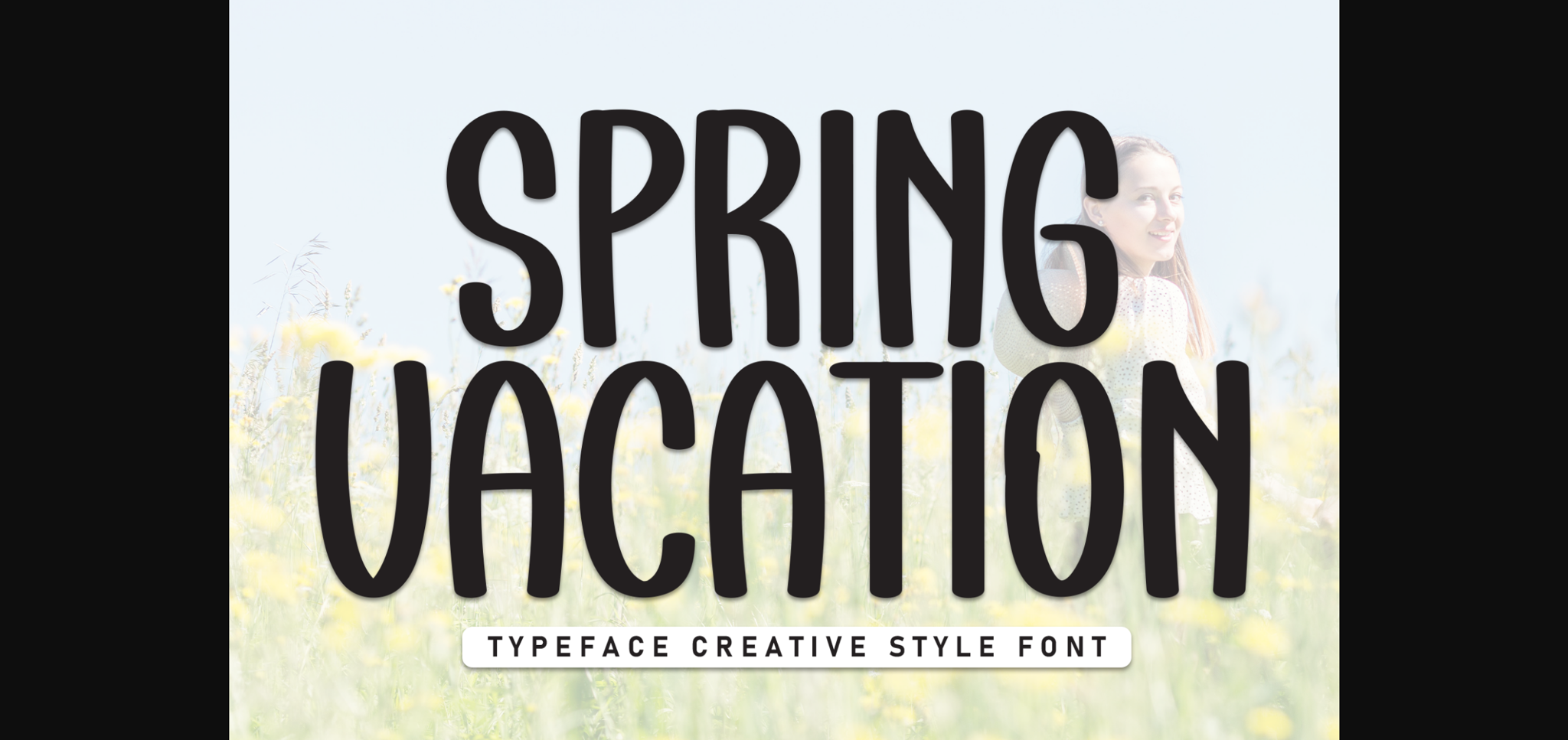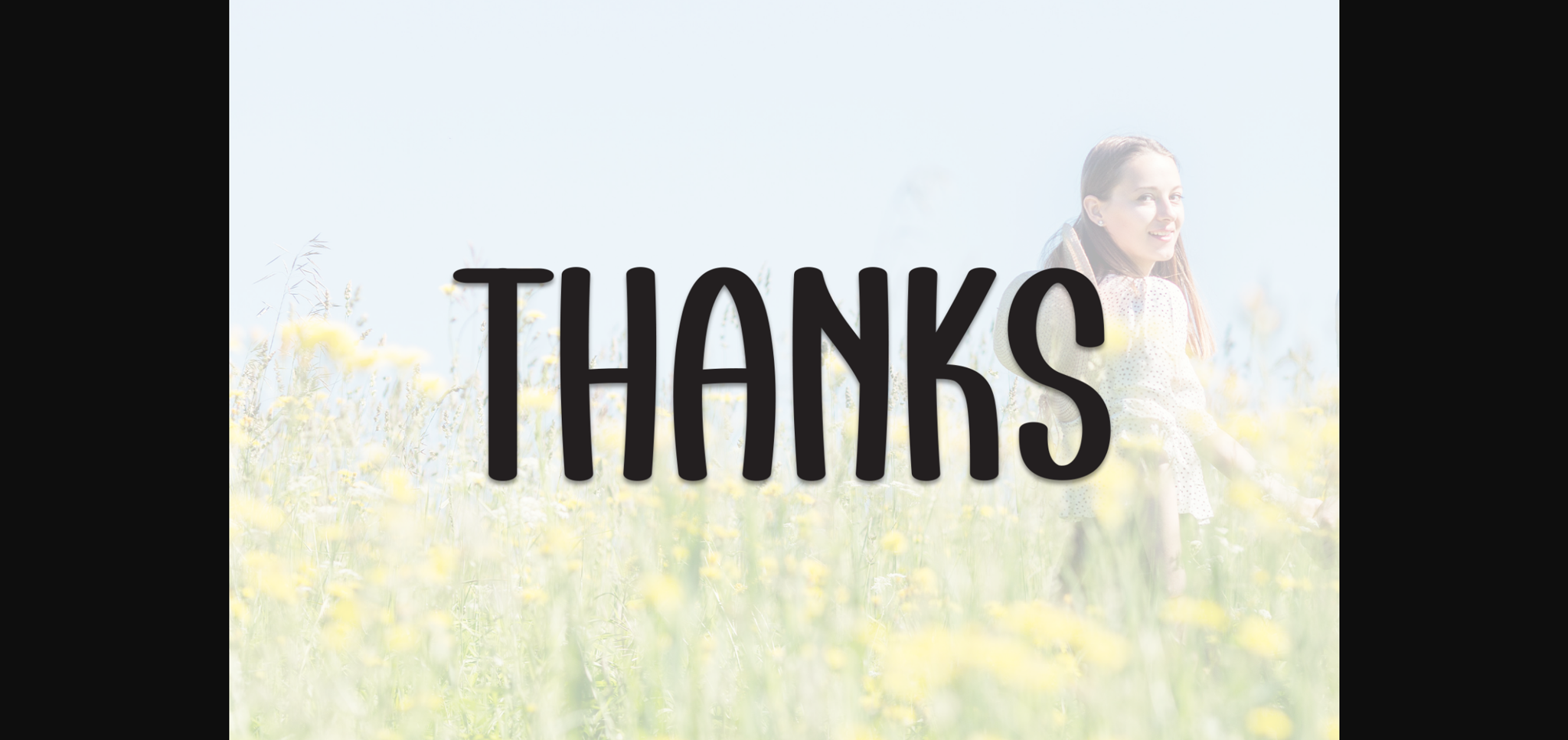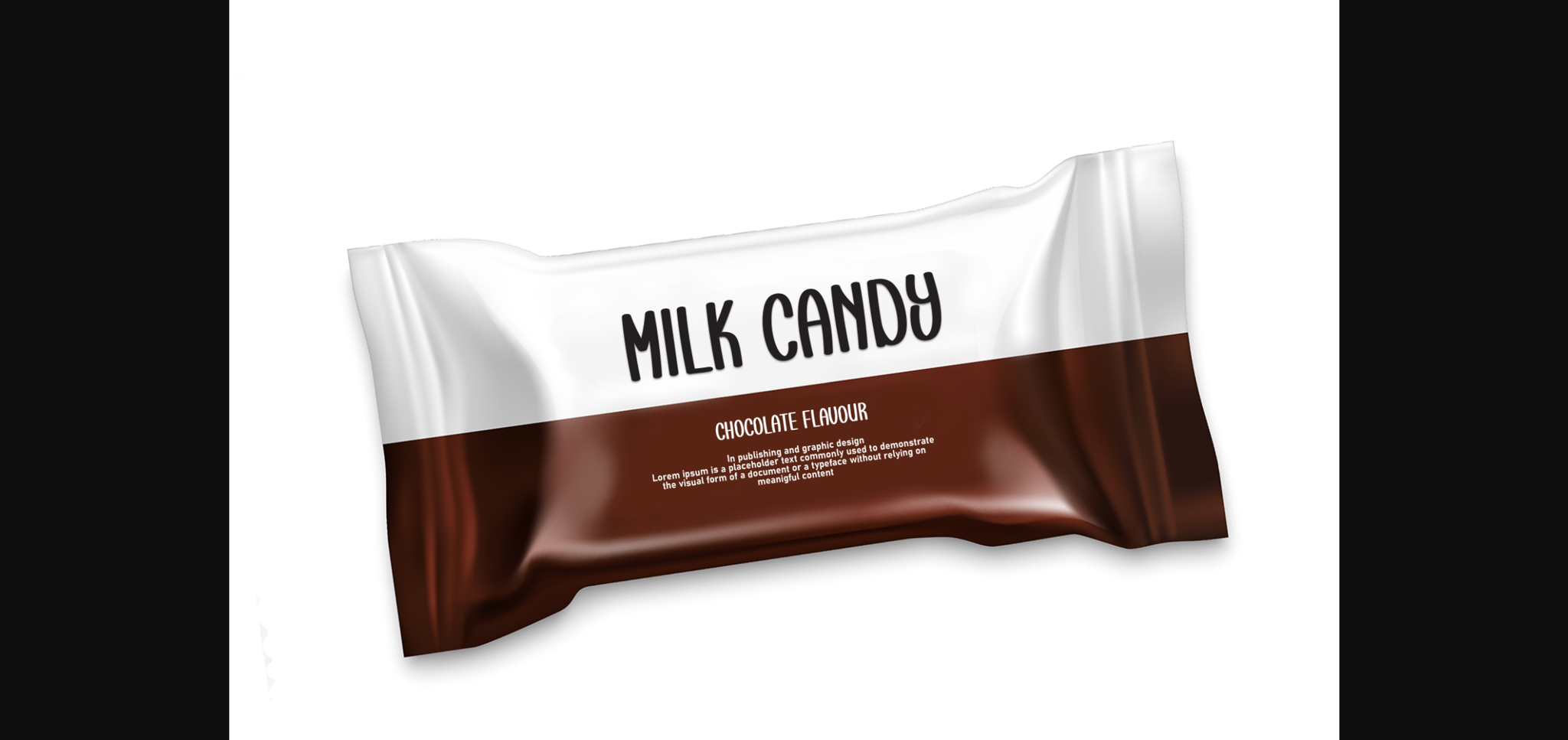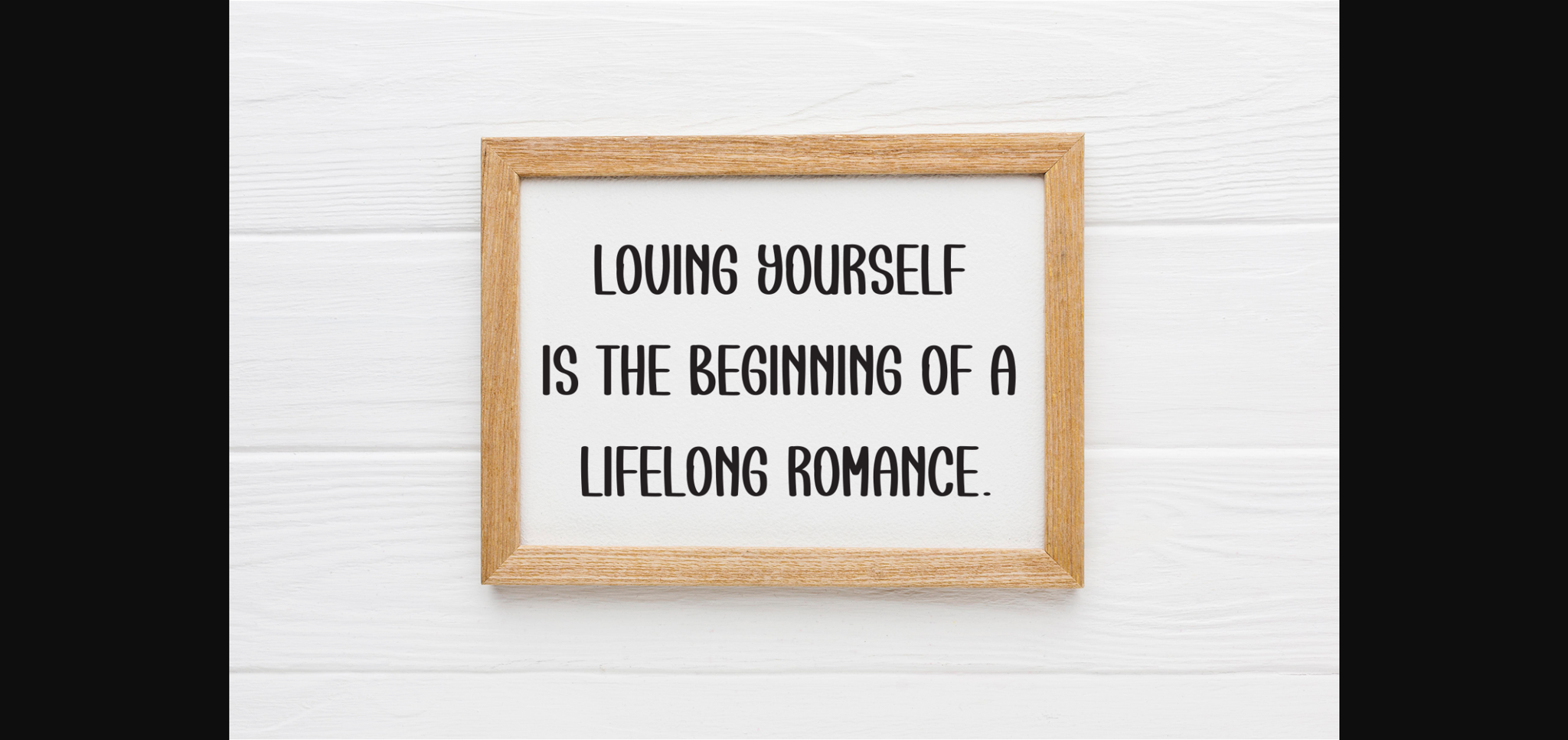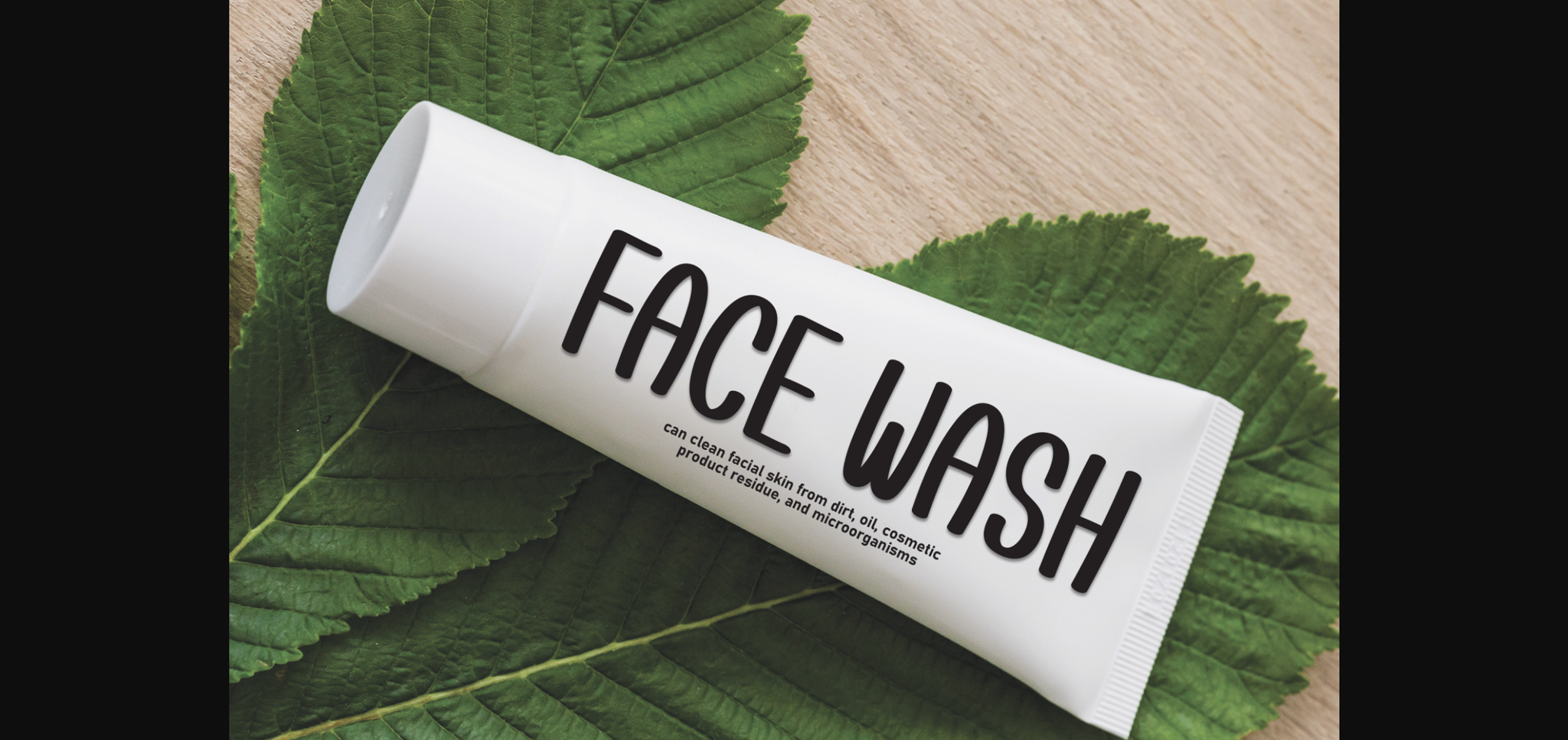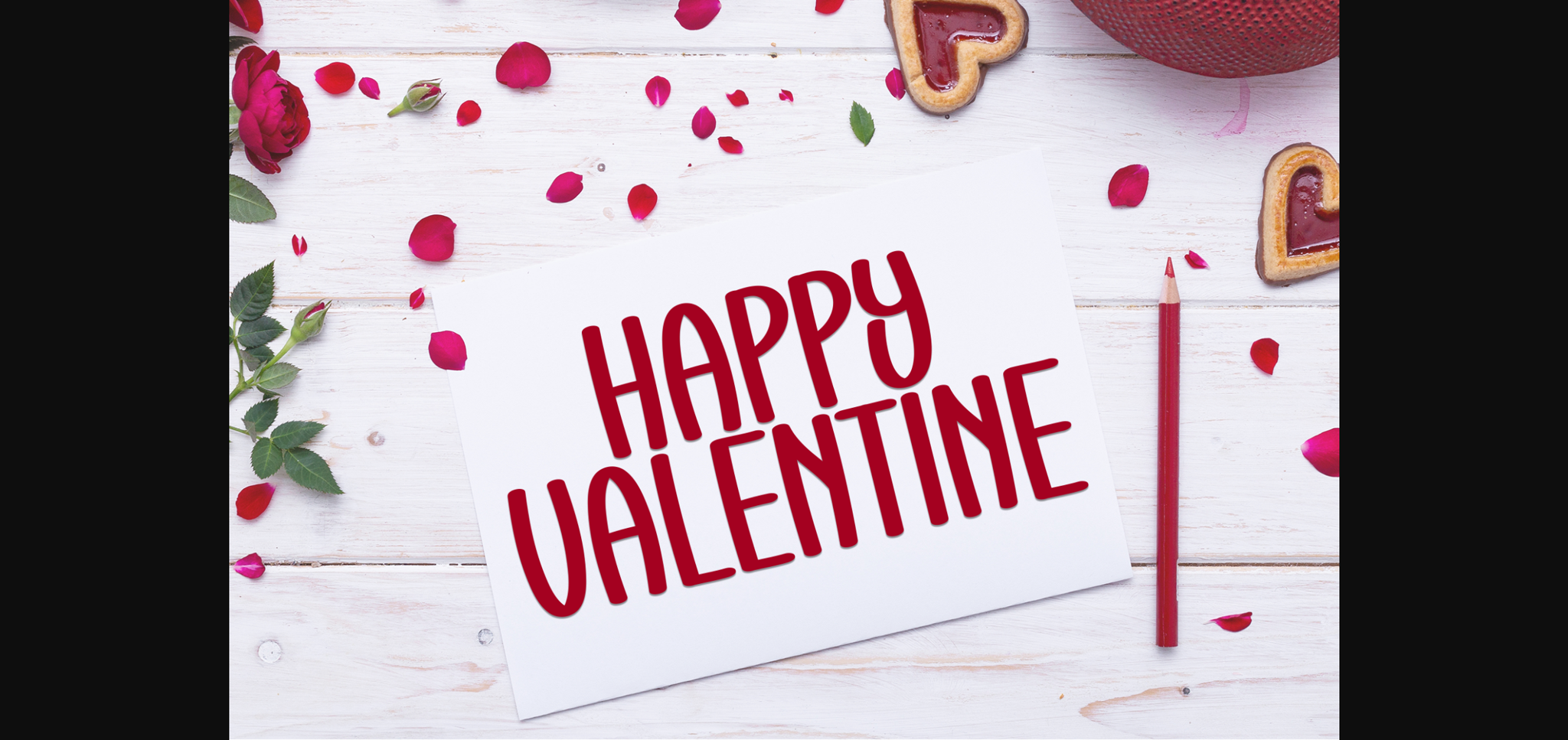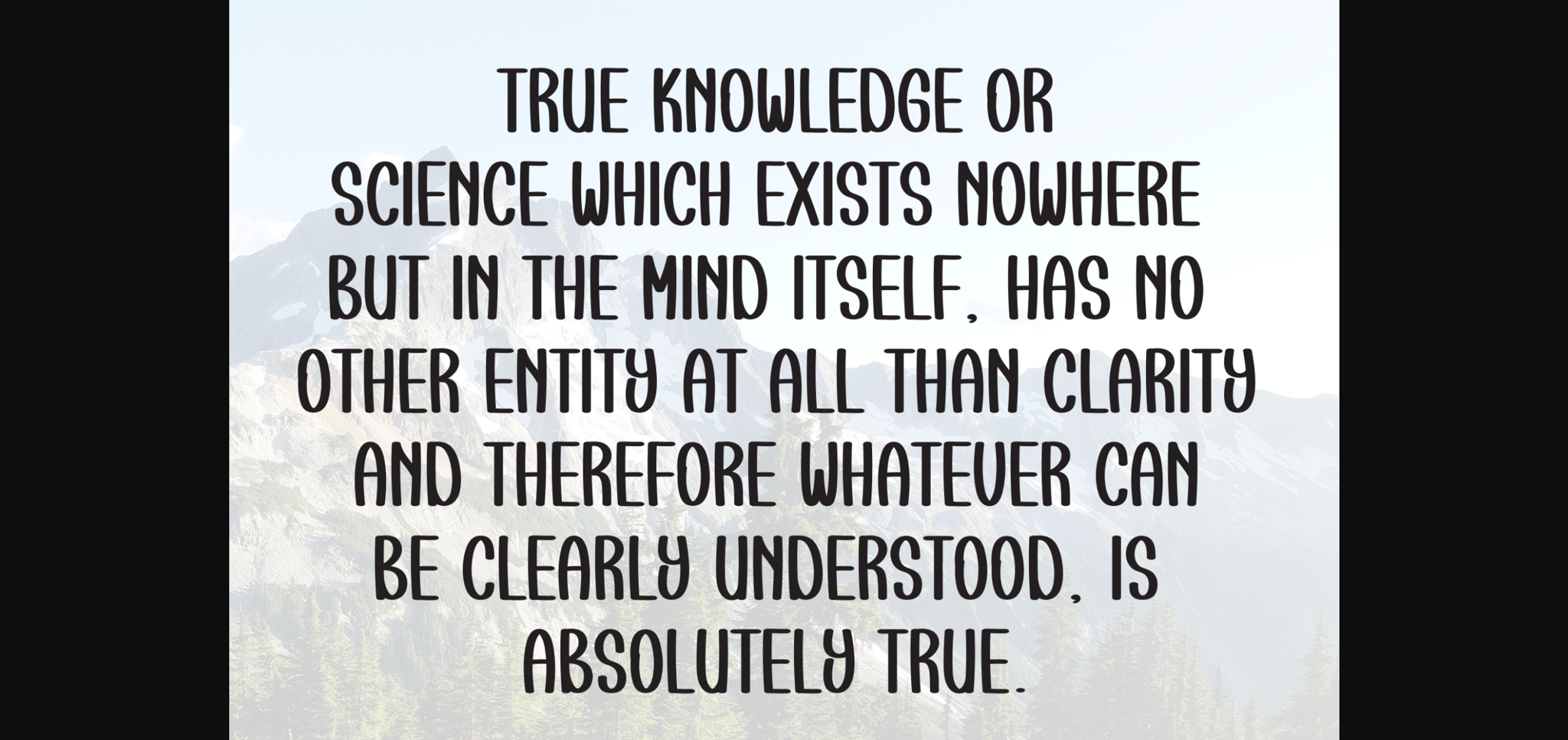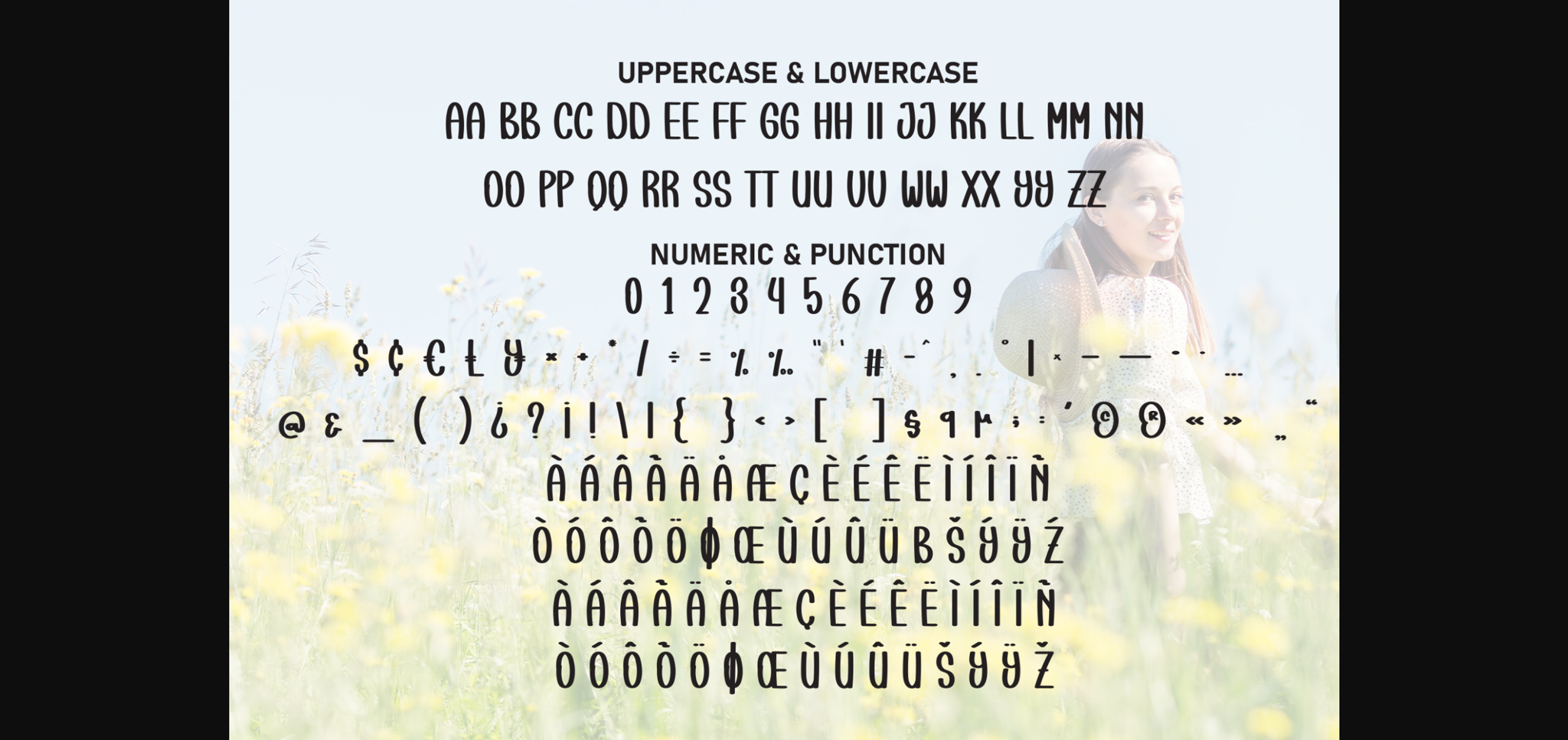
Spring Vacation Font
About Spring Vacation Font
Spring Vacation is a neat and casual sans-serif font that combines simplicity with a touch of warmth. With clean lines and balanced proportions, it exudes a friendly and approachable vibe. Perfect for various design projects, Spring Vacation brings a modern and versatile style to your typography repertoire.